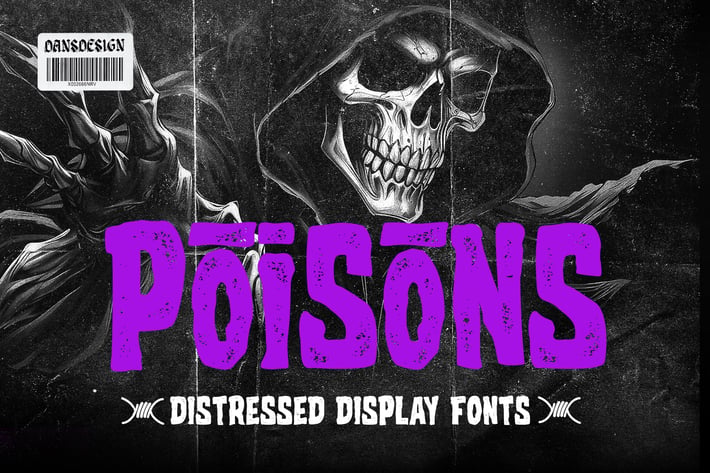
Poisons Distressed Horror Display Font
Poisons Distressed Horror Display Font a distinct, highly detailed. Modern Distressed font
It would make a great choice for exquisite retro-urban designs, business branding, logos, Apparel designs, and more.